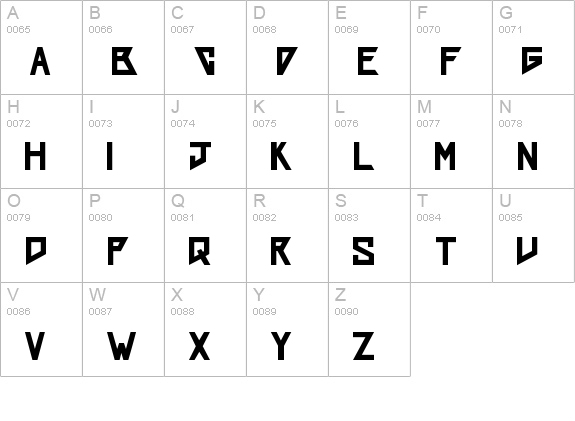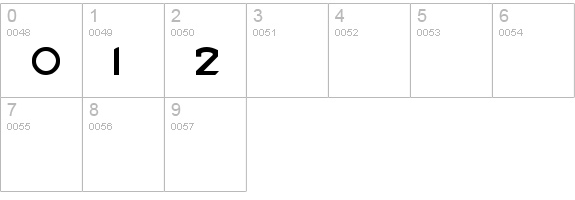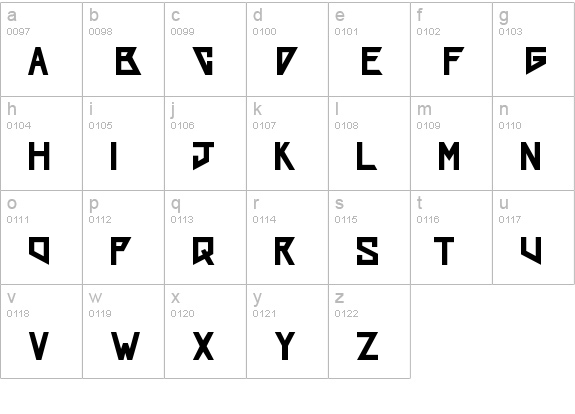
Introducing the NCAA PAC-12 font - a bold and dynamic typeface that captures the essence of athleticism, competition, and collegiate spirit. Designed with meticulous attention to detail, this font brings the power and energy of the PAC-12 Conference to life. With its strong and commanding presence, the NCAA PAC-12 font demands attention and instantly evokes a sense of excitement and anticipation. Its sleek and modern design seamlessly blends tradition with contemporary aesthetics, making it the perfect choice for any project related to college sports, branding, or event promotions. But what sets the NCAA PAC-12 font apart is not just its remarkable visual appeal, but also its availability - completely free! Thanks to FontsMarket.com, this font is freely accessible for download, allowing designers, enthusiasts, and sports aficionados alike to unleash their creativity without any limitations or financial constraints. Whether you're designing a poster for a thrilling PAC-12 football game, creating a dynamic logo for a college athletics program, or crafting engaging social media graphics for a spirited sports event, the NCAA PAC-12 font will be your ultimate tool. Its versatility allows it to adapt to various design styles and contexts, lending a professional touch to any project it graces. Immerse yourself in the electrifying energy of collegiate sports with the NCAA PAC-12 font. Download it for free today at FontsMarket.com and discover the limitless possibilities it offers. Let this font become your secret weapon, empowering you to create captivating designs that capture the true essence of the PAC-12 Conference.